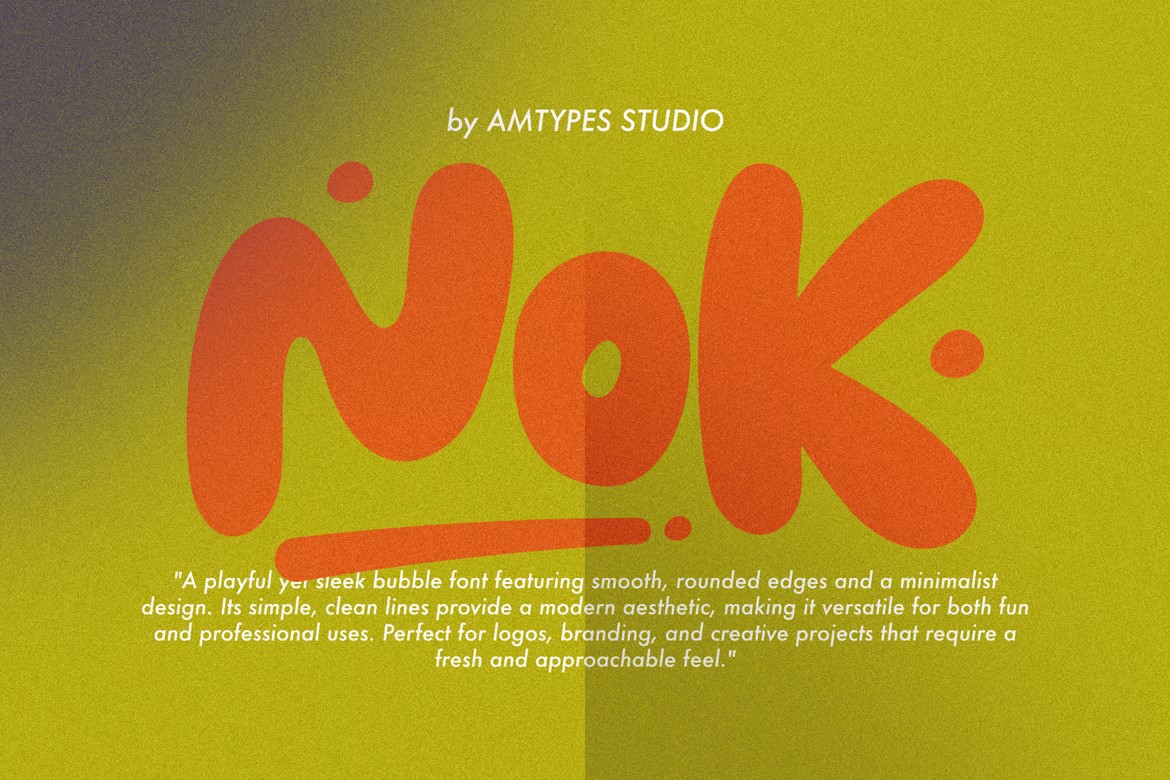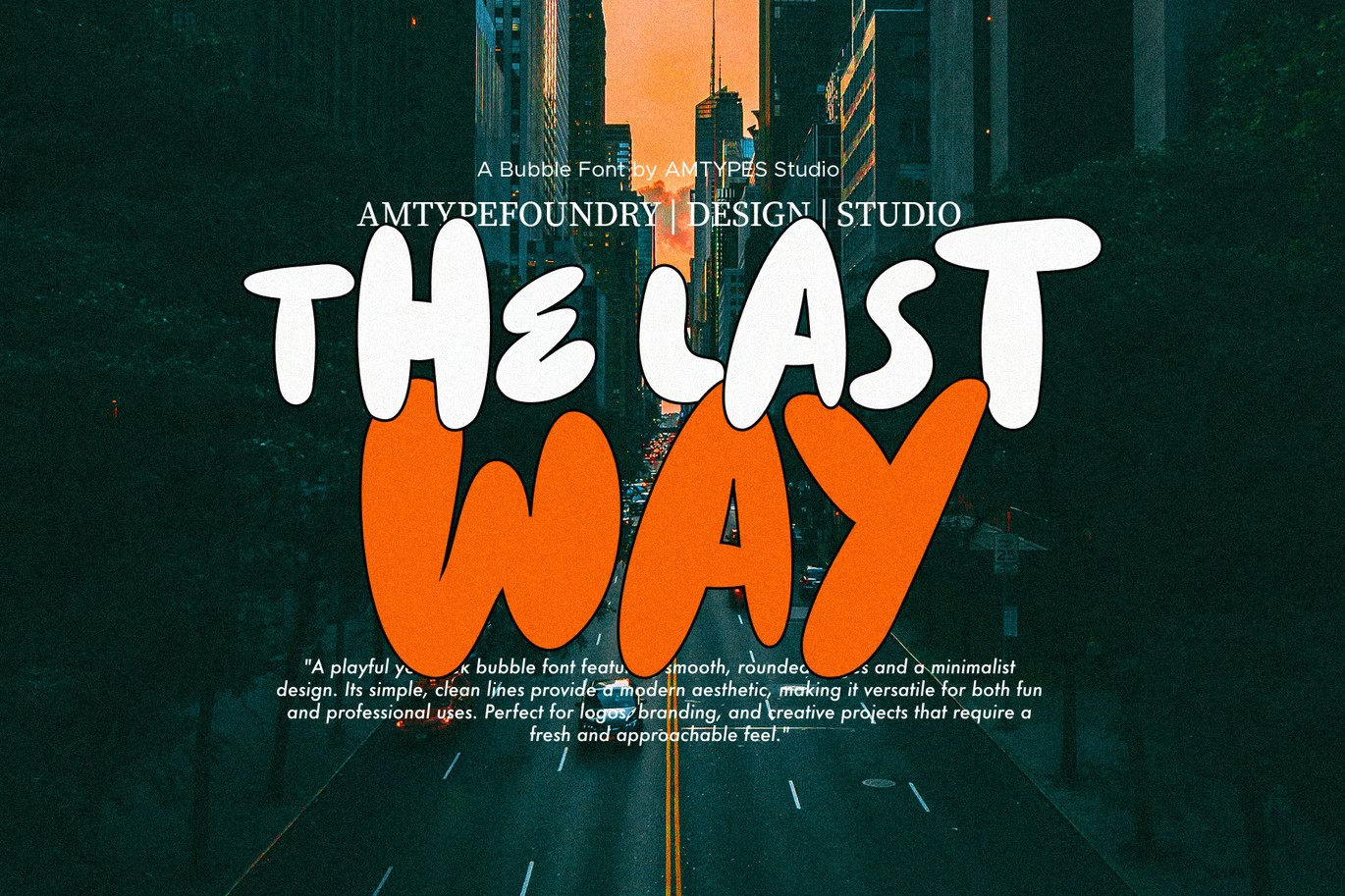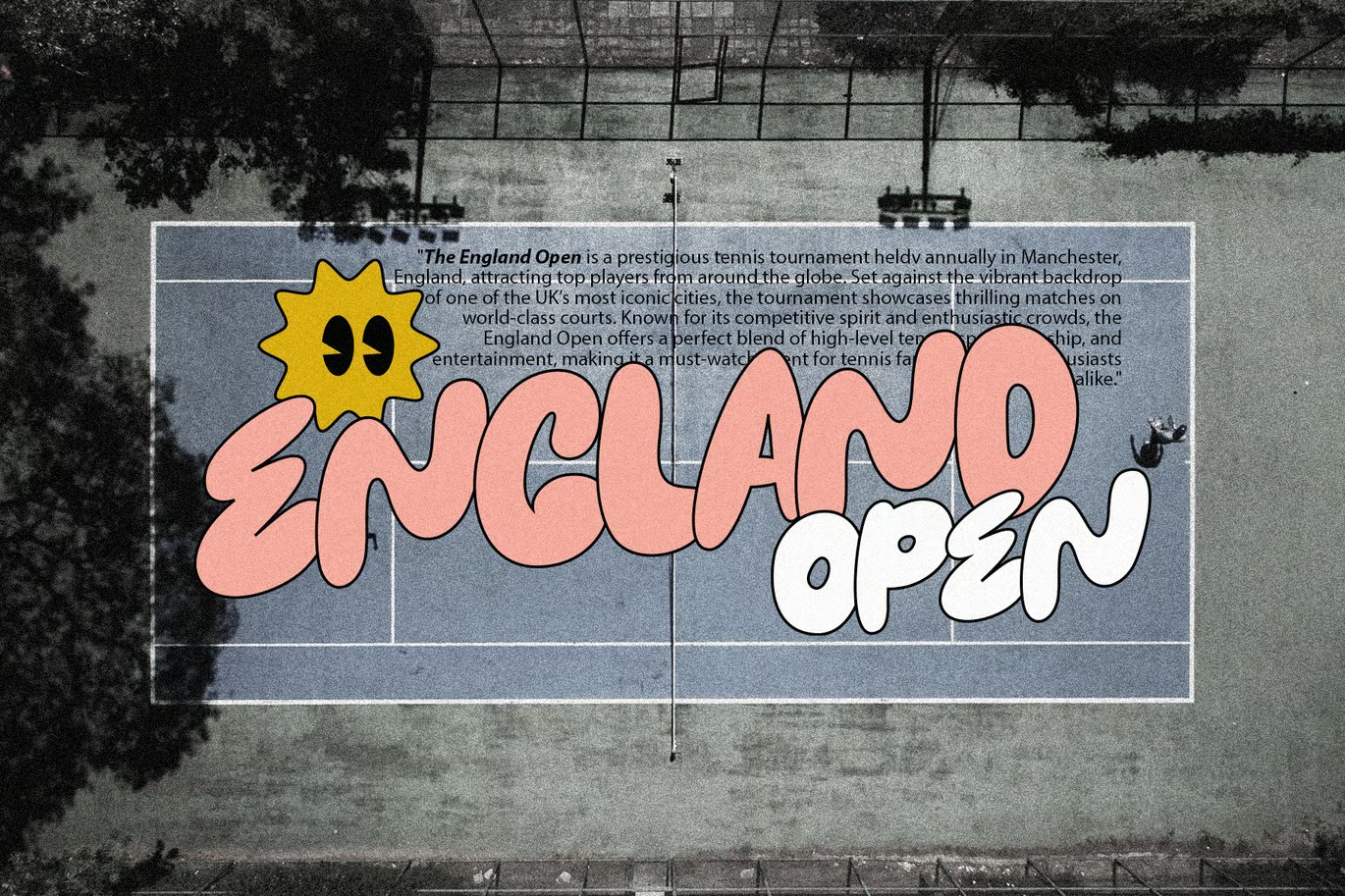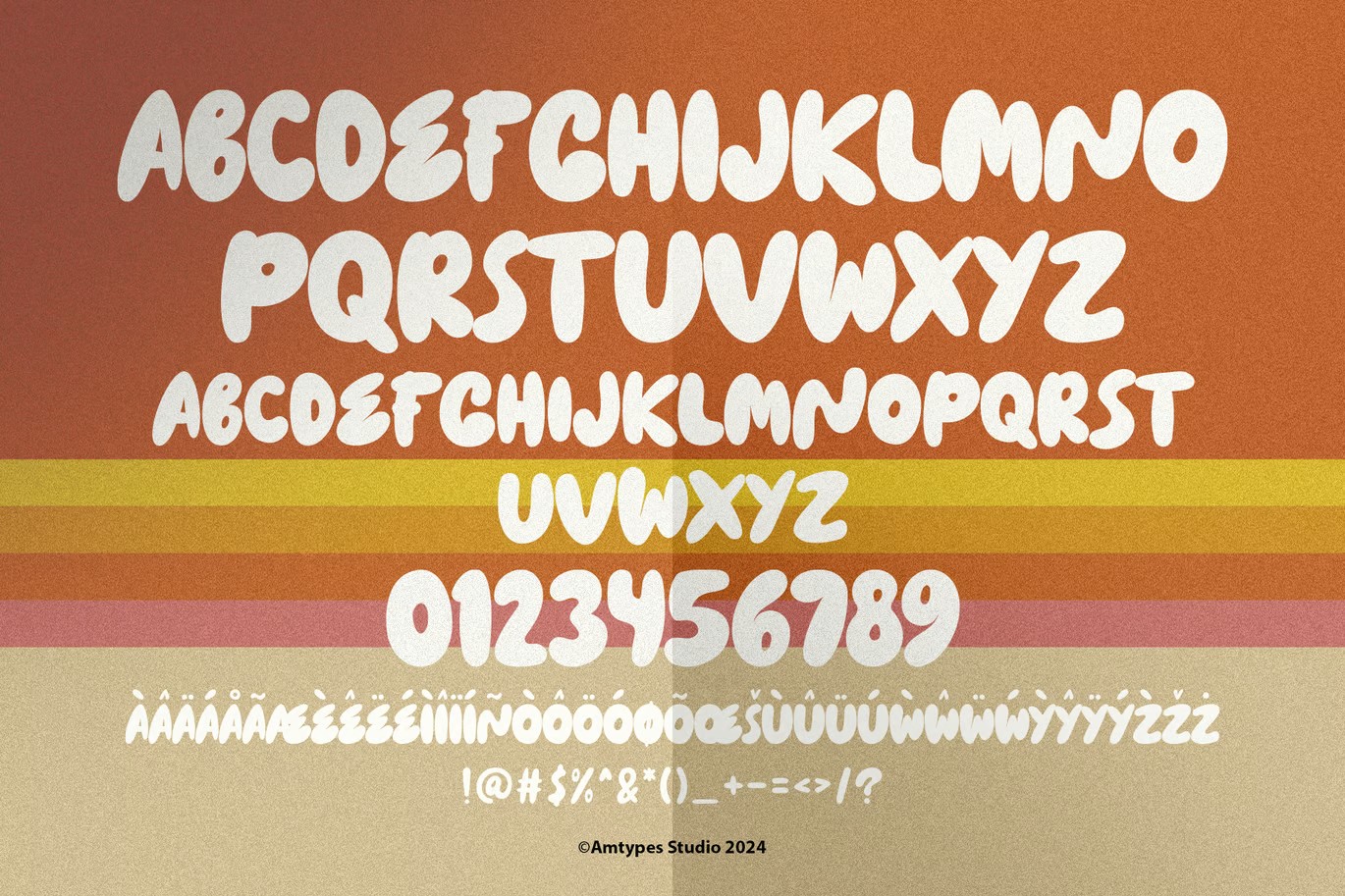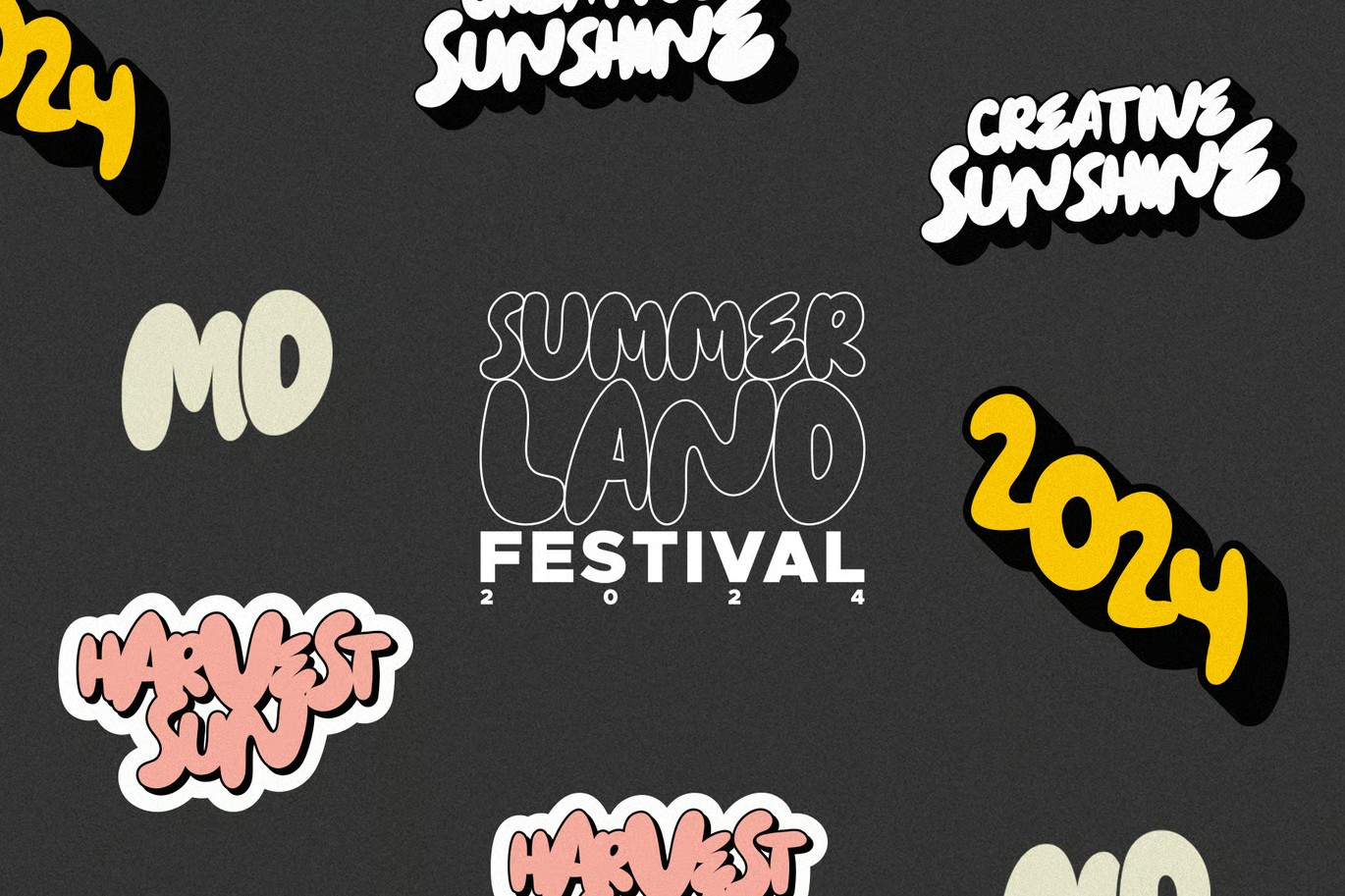
Nok Font
About Nok Font
I’m a typographer and graphic designer who’s always on the lookout for fonts that feel both fresh and functional. That’s how I found Nok Font, a typeface that instantly felt like a fit. I was working on a branding project where the goal was simple, modern, and playful but still clean. Nok had it all. I used it for logos, titles, and even pitch decks. It just worked.
If you’ve ever struggled to find a headline font that’s friendly but not too cute, this one nails it. That’s why I’m writing this. Nok deserves some spotlight, and you deserve to know why it’s worth trying.
Meet Nok: A Friendly, Clean Display Font
Nok Font is designed by Angga Mahardika, an independent type designer and founder of Amsupply. He’s known for making modern fonts that still carry a human touch. Nok does just that.
The font feels warm thanks to its rounded edges and soft curves, yet it’s structured enough to look clean on digital and print. The styling is a twist on a classic bubble style, but not overdone. It keeps its personality without being loud.
Mahardika’s work always reflects balance. Nok gives you character and clarity in one file.
Nok Font Features
Nok combines effortless readability with a unique design style. Each character is spaced with care. Letters flow well, whether you’re using uppercase, lowercase, or both in your layout.
The font includes:
- Standard Latin alphabet (uppercase + lowercase).
- Numerals & punctuation.
- Multilingual support for extended character sets.
You can use Nok for anything from graphic design to motion titles to page headers on websites. It also works great for UI/UX prototypes, especially when you want something friendlier than geometric sans.
Nok is perfect for logos, branding decks, social posts, packaging, and even landing page titles. If your project needs to feel modern but not too formal, Nok fits right in. Its curves give off warmth, which makes it ideal for service businesses, creatives, and lifestyle brands.
I’ve personally used it for a property brand identity, and it made the logo and sub-headlines feel modern yet approachable. Think of Nok as the middle ground between playful and pro.
It also performs well in ebooks, app UI, and even video games. Clean enough for screens, unique enough to stand out. If you design for Canva, Figma, or any modern layout tools, Nok won’t disappoint. It’s especially helpful for designers who want readability without going minimalist.
Want to try a similar font? Look for clean rounded typefaces, but trust me. Nok’s balance of friendliness and sharpness is hard to match.
I really hope you enjoy using Nok Font. It’s one of those fonts that just feels right in most creative projects. If you’re on the fence, just test it on a poster. You’ll see what I mean.